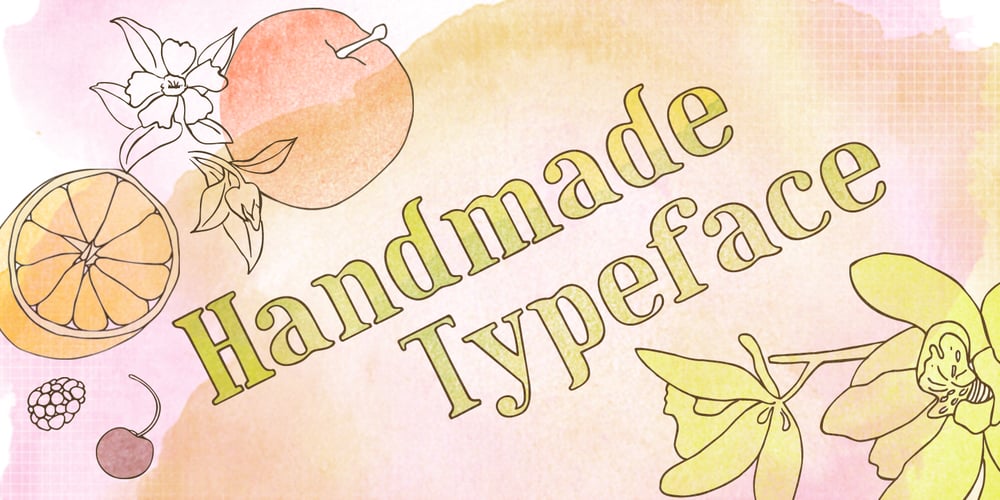
Maple Street Font Family was designed by Luke William Turvey, Natsuko Hayashida and published by Okaycat. Maple Street contains 4 styles and family package options. Maple Street is a great looking traditional serif font composed by the Okaycat design team, Luke Turvey & Natsuko Hayashida, in 2014. Bold didone forms with structural seriffed detail combine at Maple Street to offer a cozy familiar style, without looking dated. This nicely balanced serif is designed to look outstanding for display or printed publication.